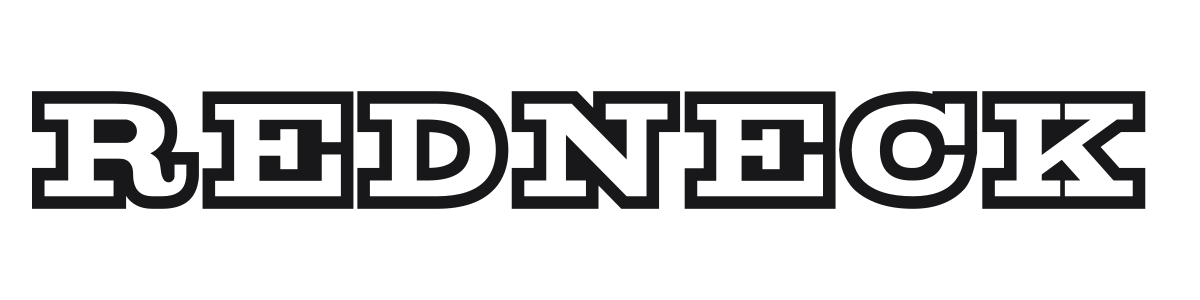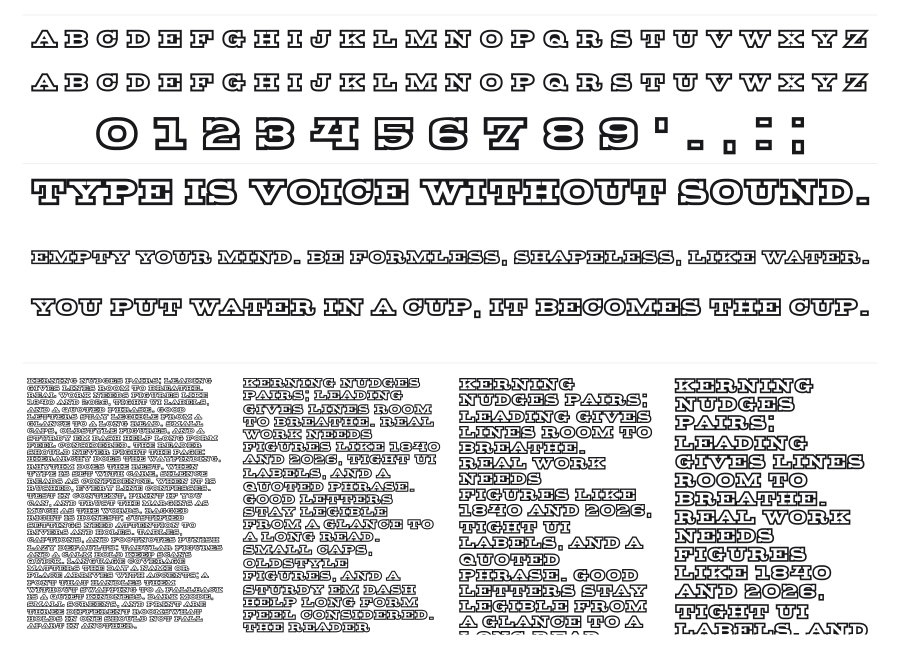
Redneck
Redneck is a heavy outlined slab-serif built on classic Western wood-type traditions. The inline engraving effect gives each character a dimensional, stamp-like quality that reads loud and bold at large sizes. It suits posters, packaging, and branding that needs a strong Americana or country-music edge.